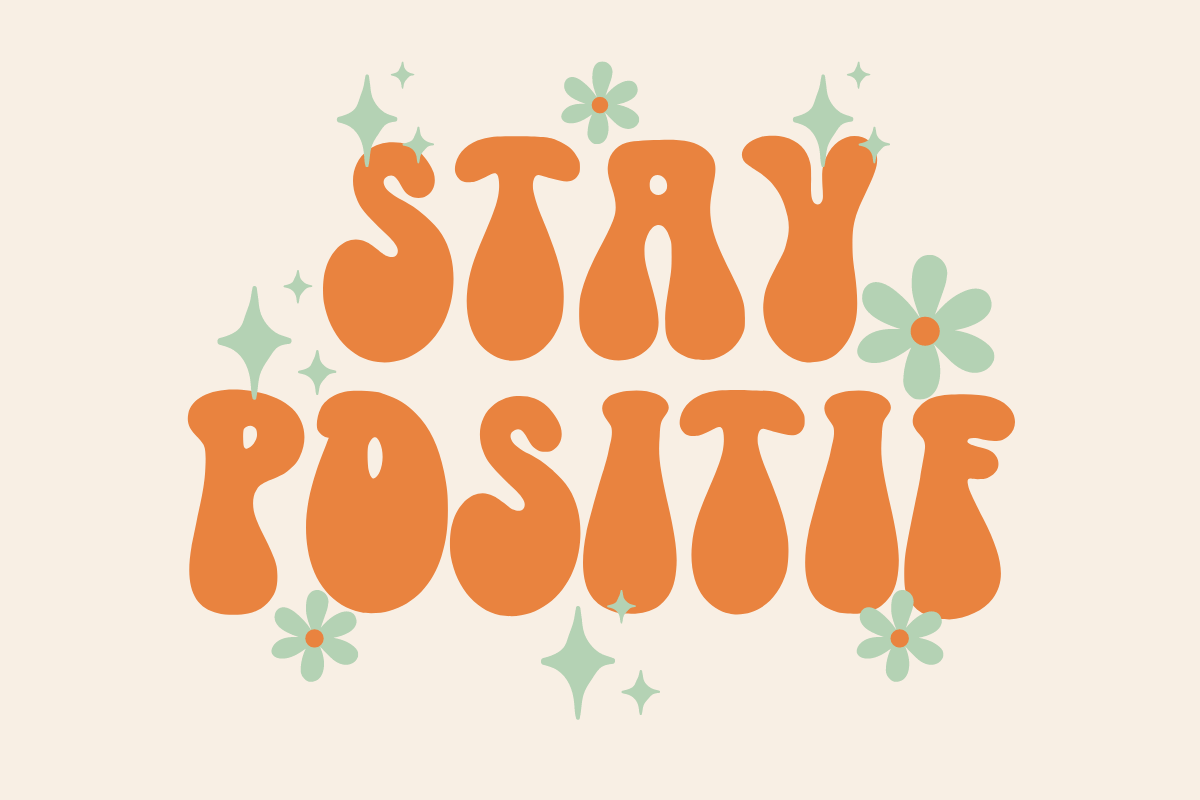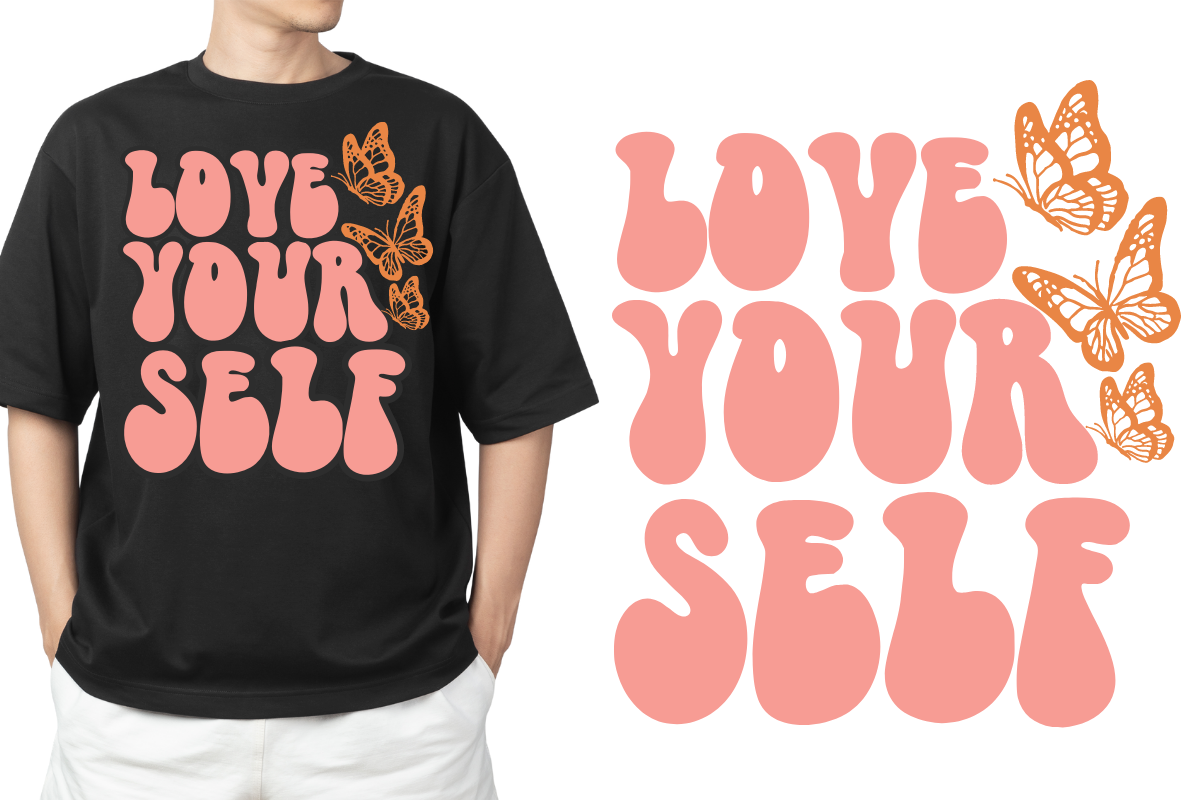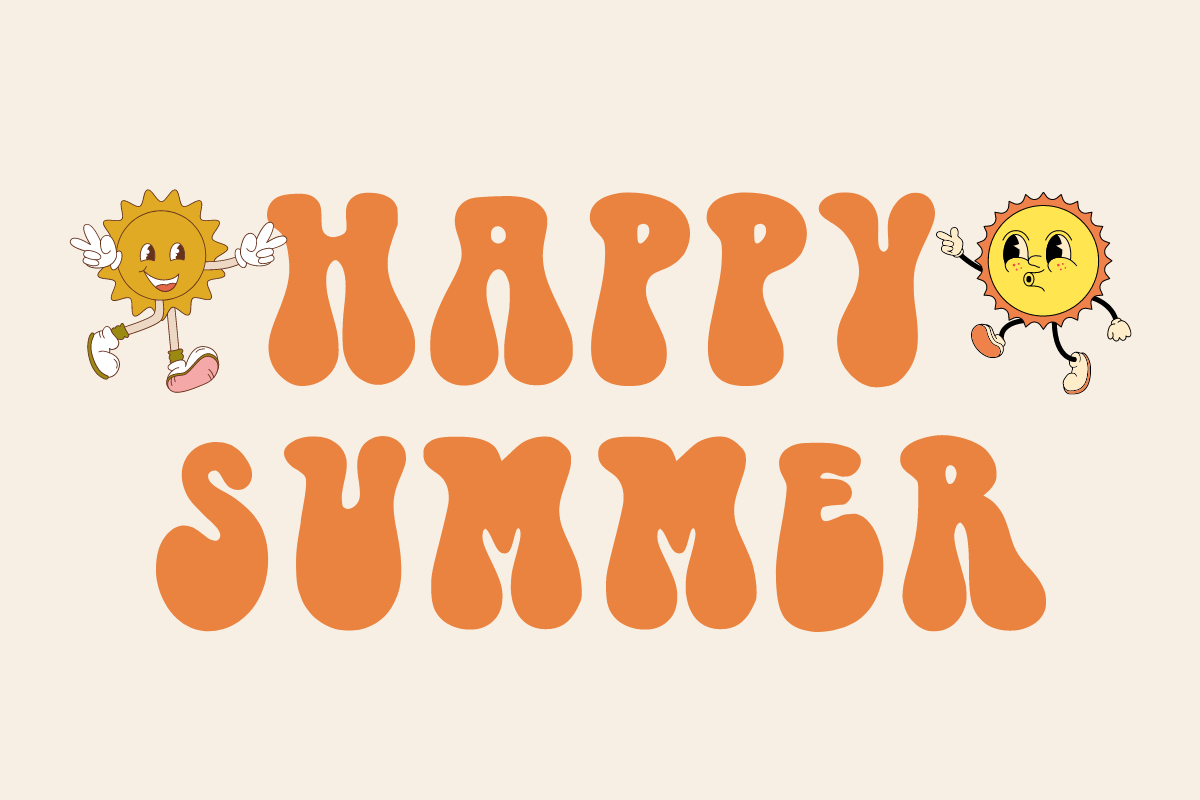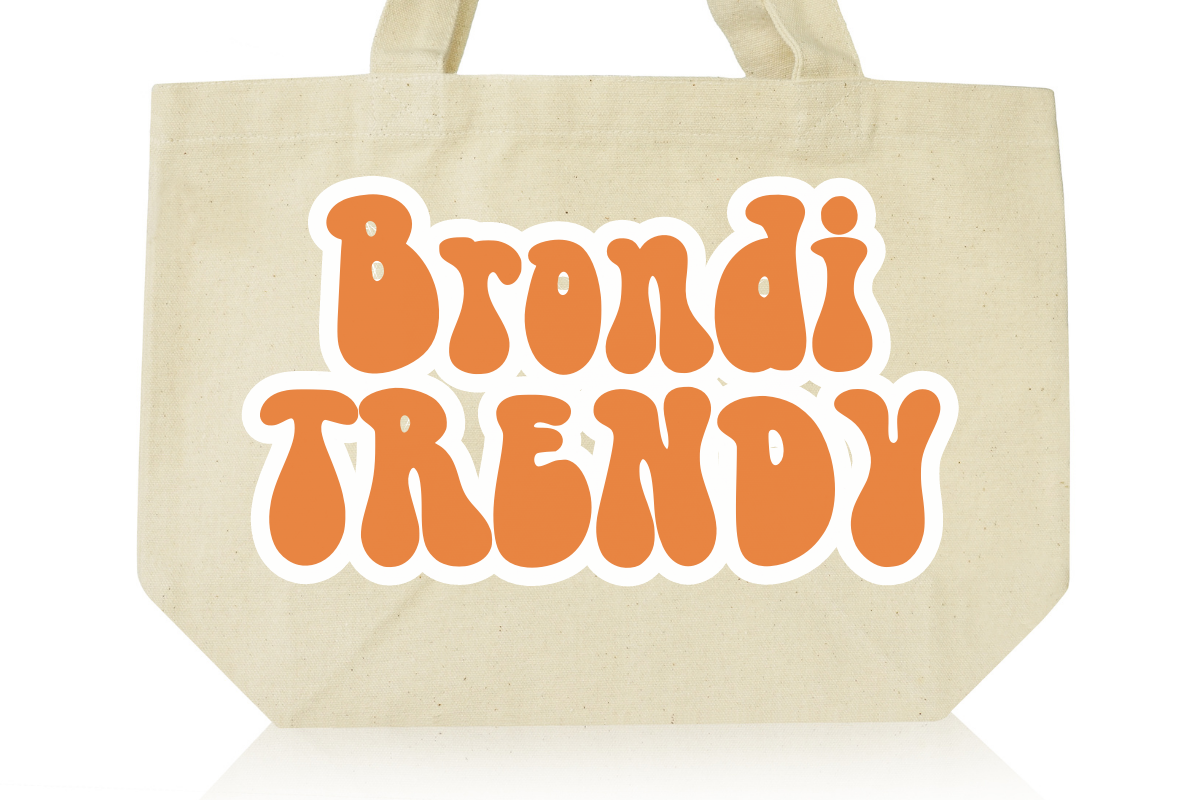
Magic Soul
Introducing Magic Soul, a cheeky and vintage-inspired font that guarantees to add a sprightly pop of joy to your designs. With a charm that's both lively and lighthearted, Magic Soul is adaptively perfect for a vast array of applications, from book covers to posters, product packaging to merchandise. It’s even an exceptional choice for logotypes. Effortlessly imparting a captivating cheerfulness, the versatile Magic Soul font is a delightful way to amplify your design esthetic.